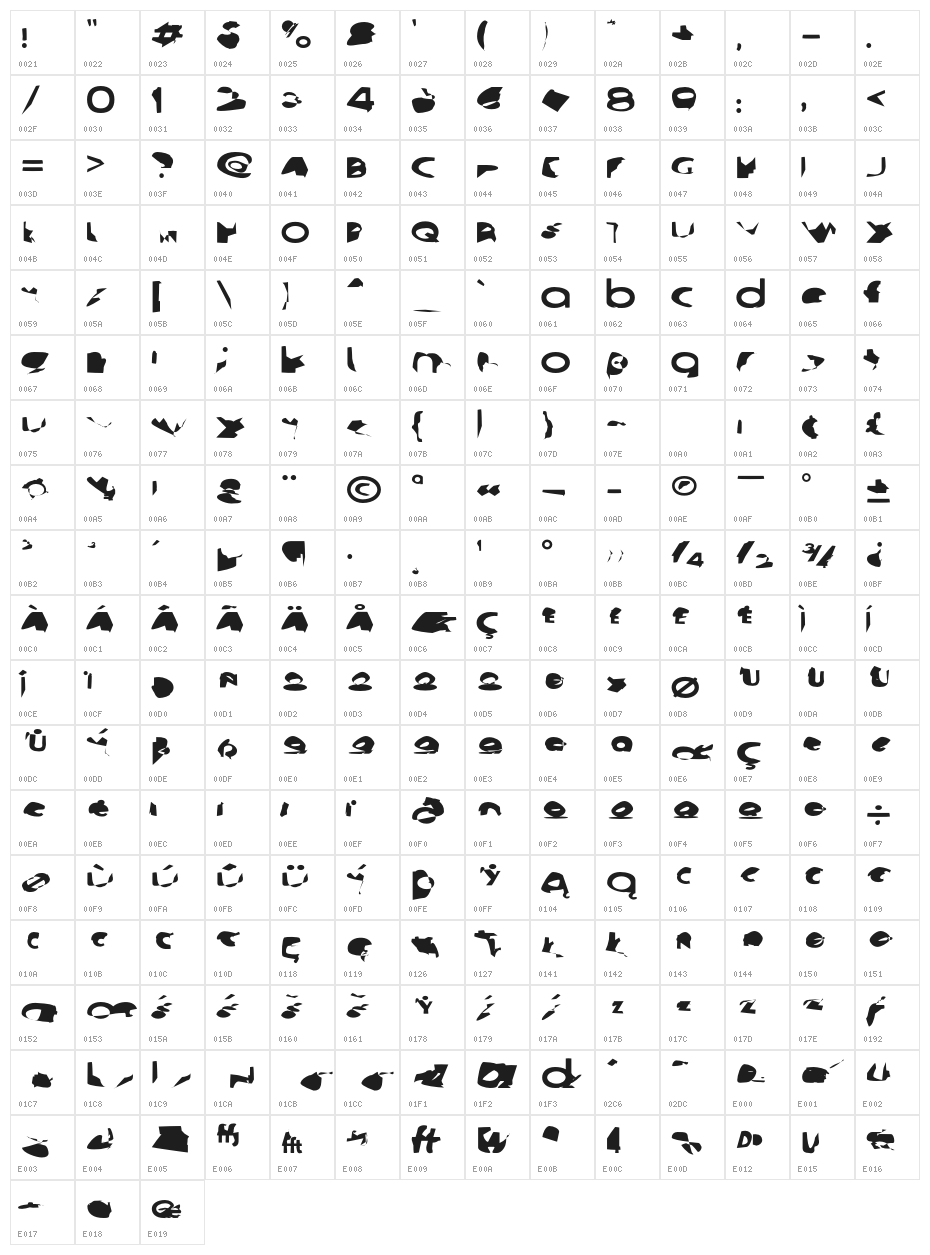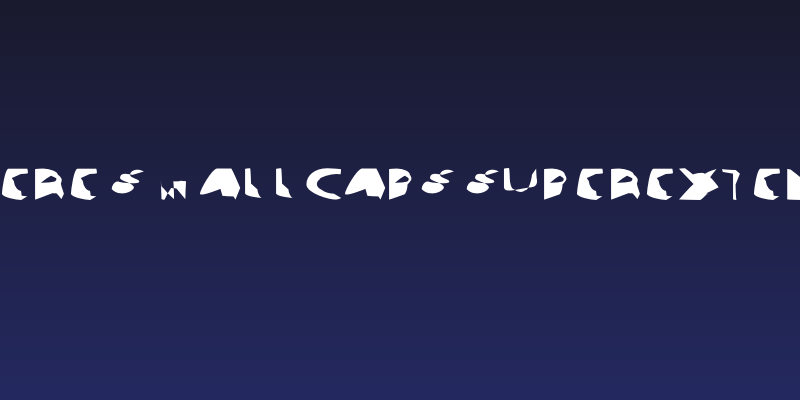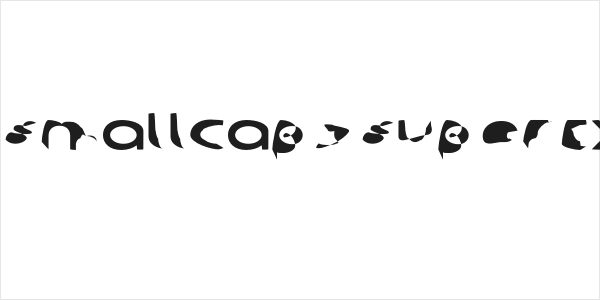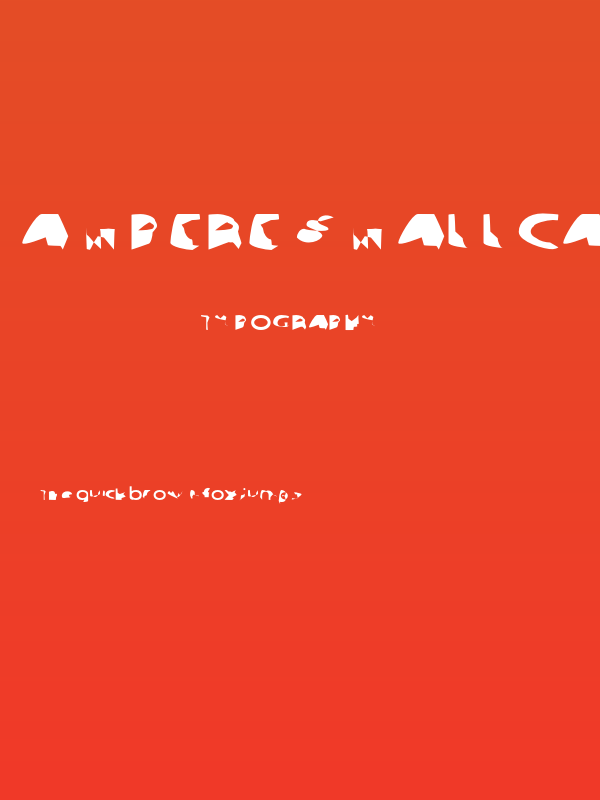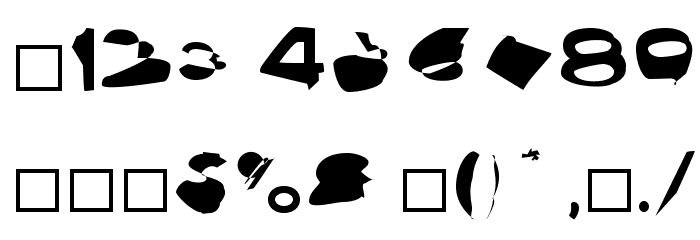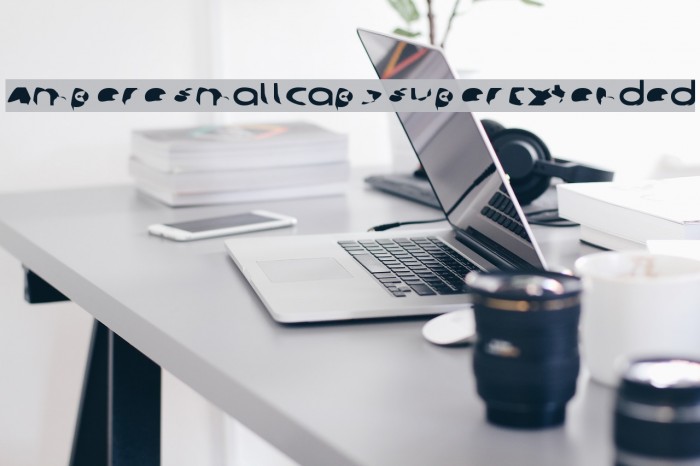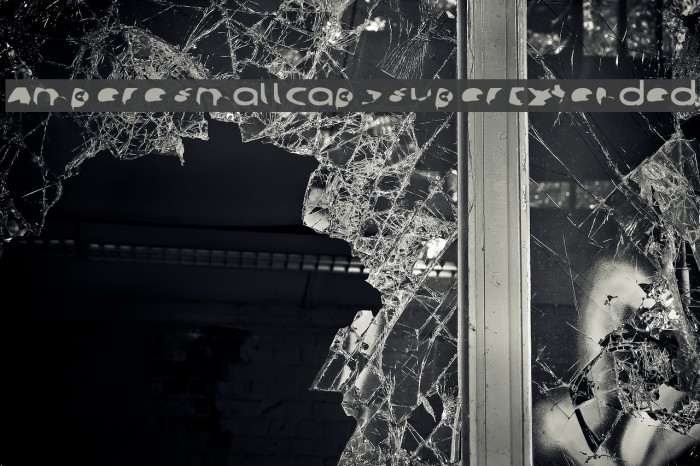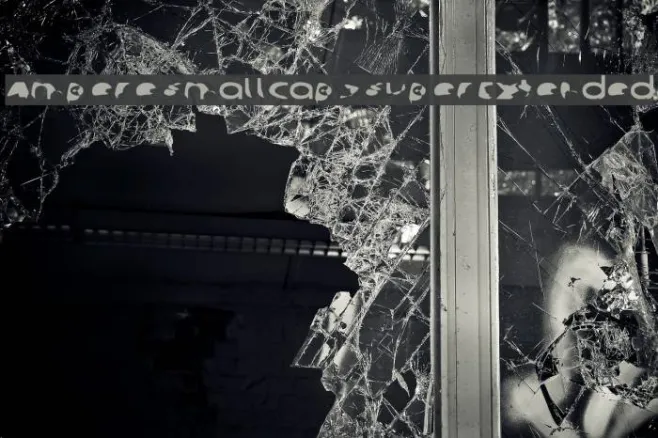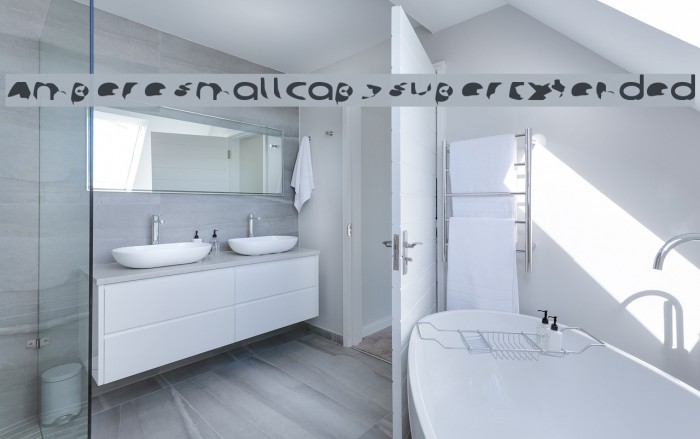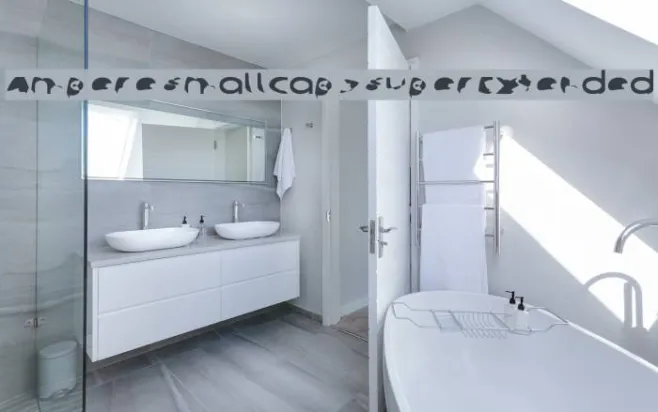
Ampere SmallCaps SuperExtended Font
Ampere SmallCaps SuperExtended Description
This font features a highly abstract and fragmented design, where each character appears to be broken or shattered, creating a unique and artistic visual effect. The uppercase and lowercase letters, as well as numbers and special characters, all follow this distinctive style, making it stand out as a bold statement piece. The characters are wide and extended, with irregular shapes that give an impression of movement and dynamism. This font is not suitable for body text due to its complexity but can be used effectively in creative projects where a strong visual impact is desired.
| Use Case | Logos, Headlines, Artistic Projects |
| Proposed Projects | Ideal for artistic posters, album covers, or any project requiring a bold, creative statement. |